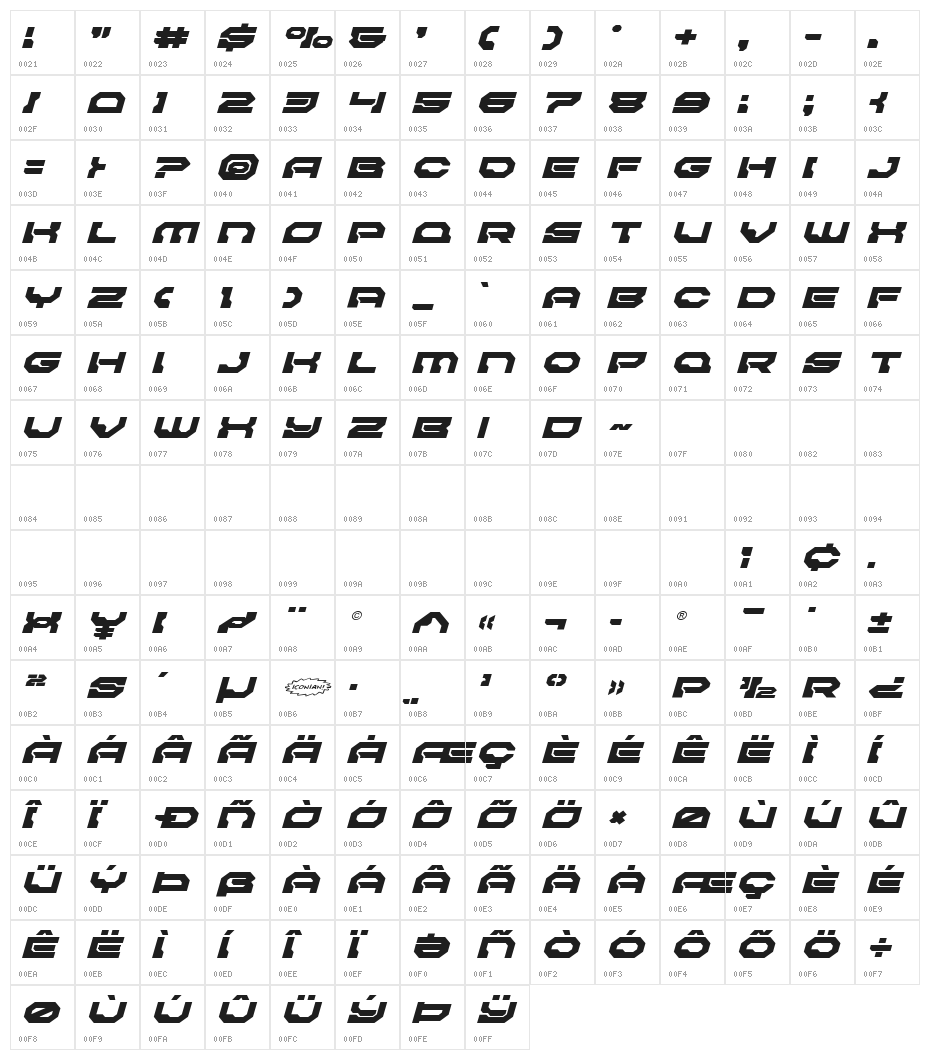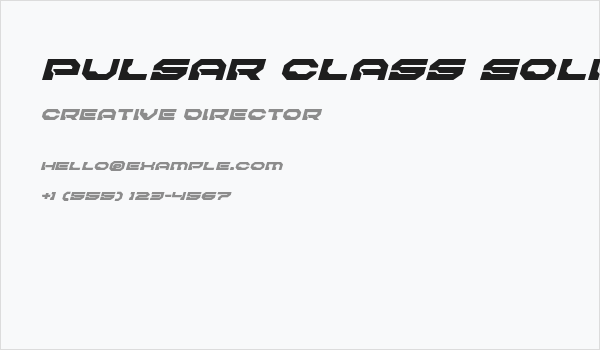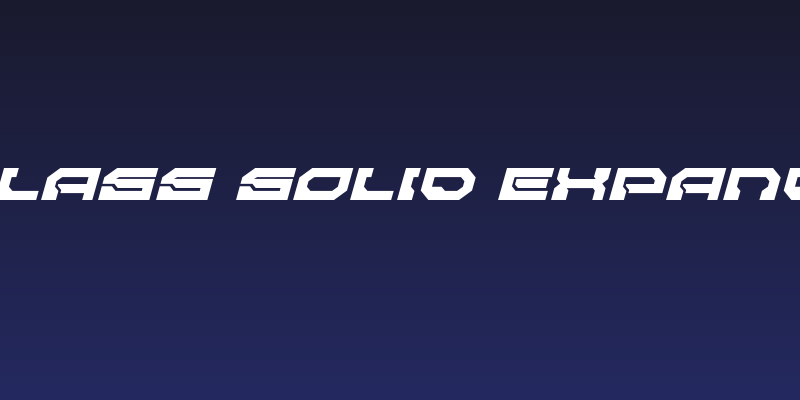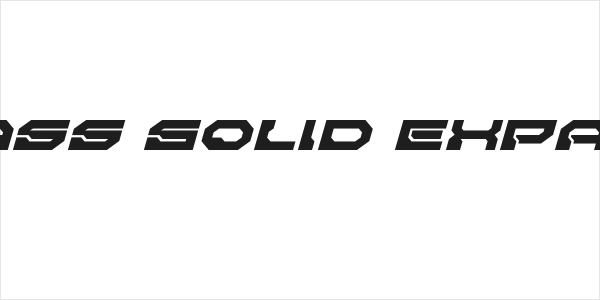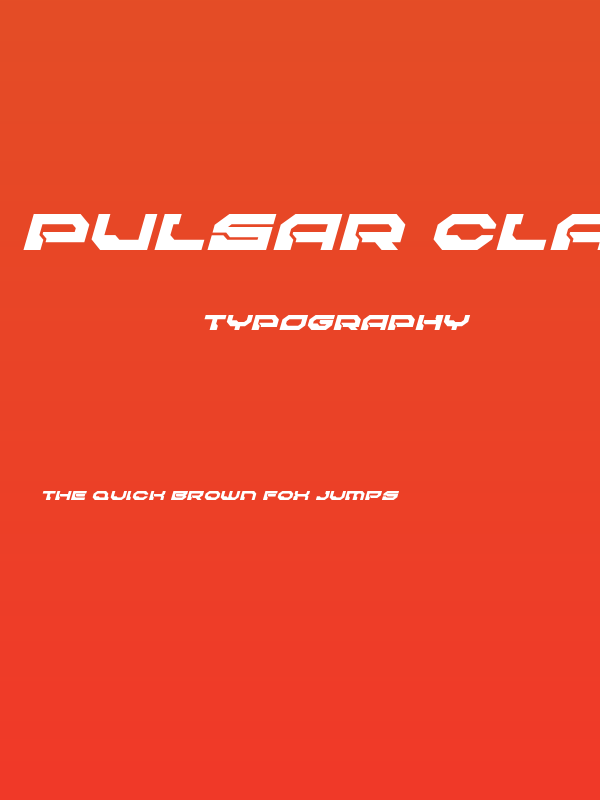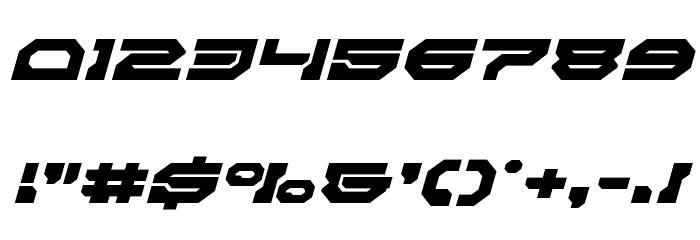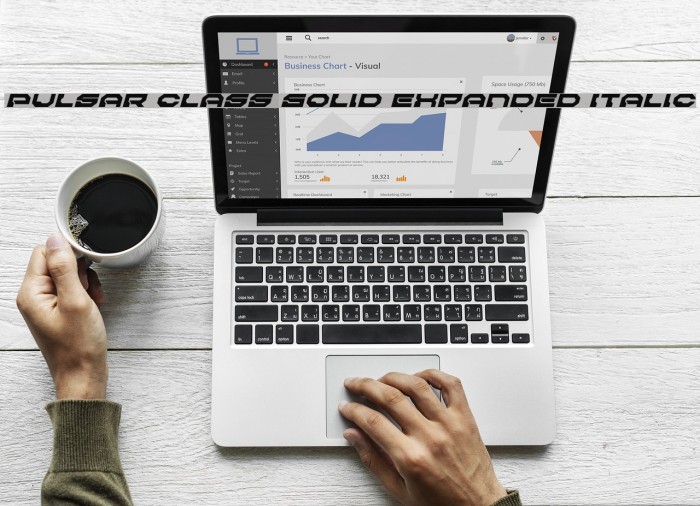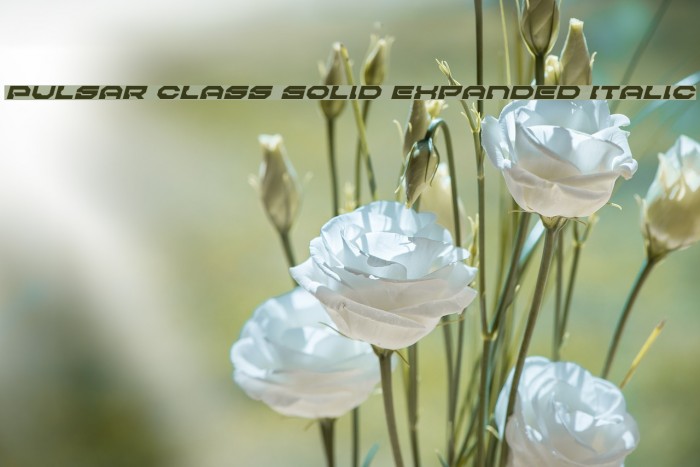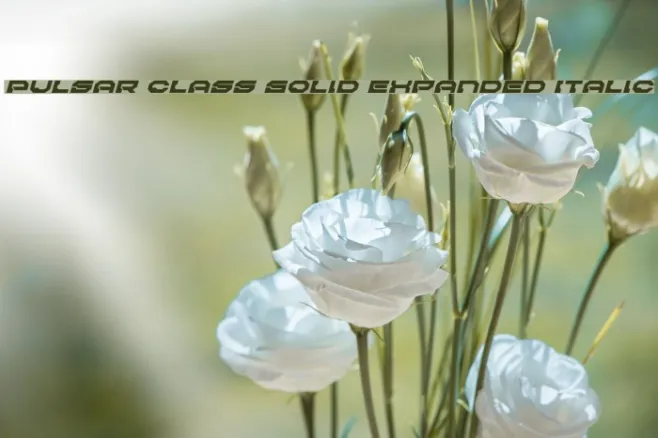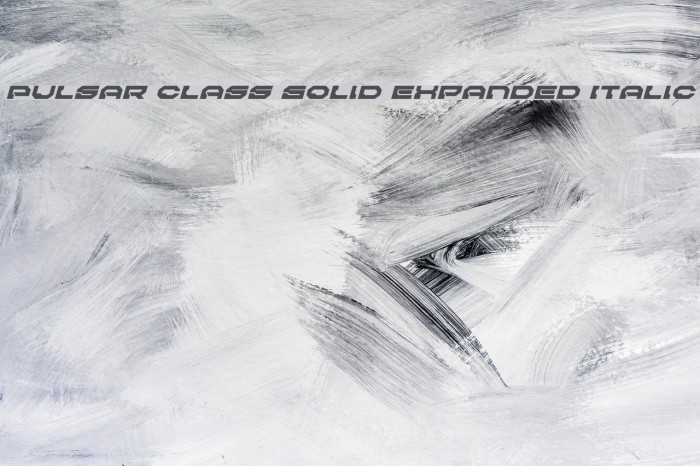
Pulsar Class Solid Expanded Italic Font
Pulsar Class Solid Expanded Italic Description
This font features a futuristic and bold design with a solid, expanded appearance. The characters are italicized, giving them a dynamic and forward-leaning posture. The geometric shapes and sharp angles create a sense of movement and energy, making it ideal for projects that require a modern and edgy look. The uppercase and lowercase letters maintain a consistent style, with a uniform thickness that enhances readability. The numbers and special characters are designed to match the overall aesthetic, ensuring a cohesive appearance across all text elements.
| Proposed Projects | Ideal for sci-fi themed designs, technology branding, video game titles, and modern advertising. |